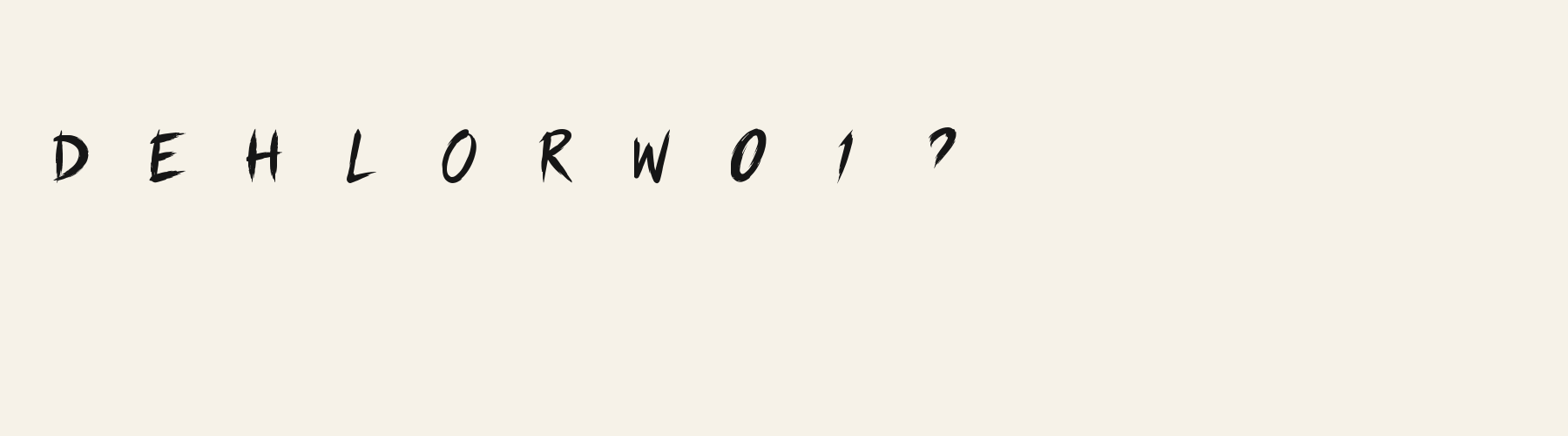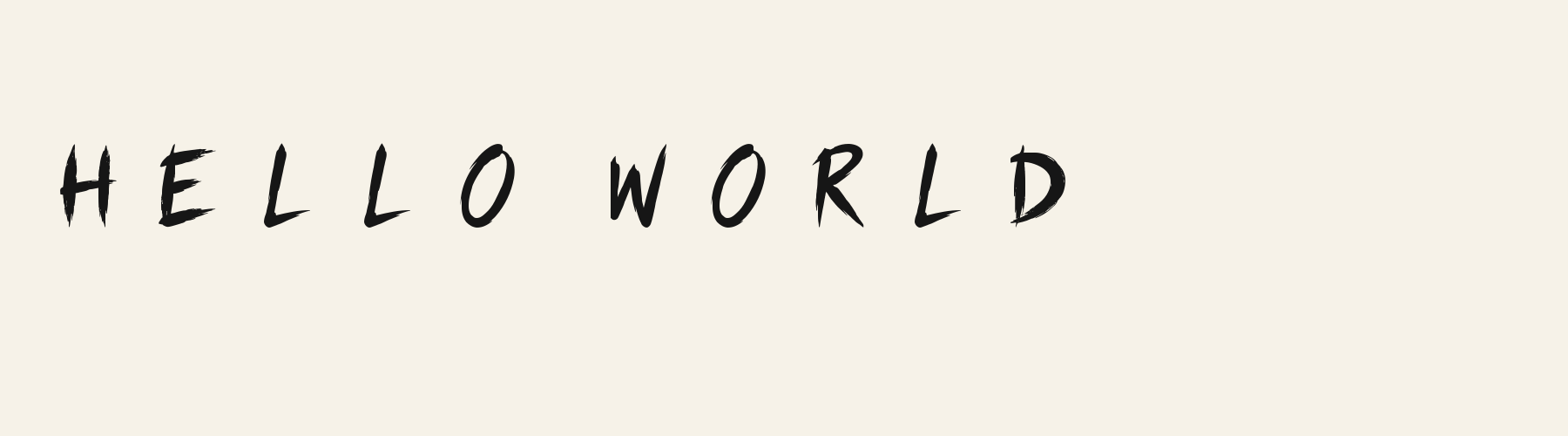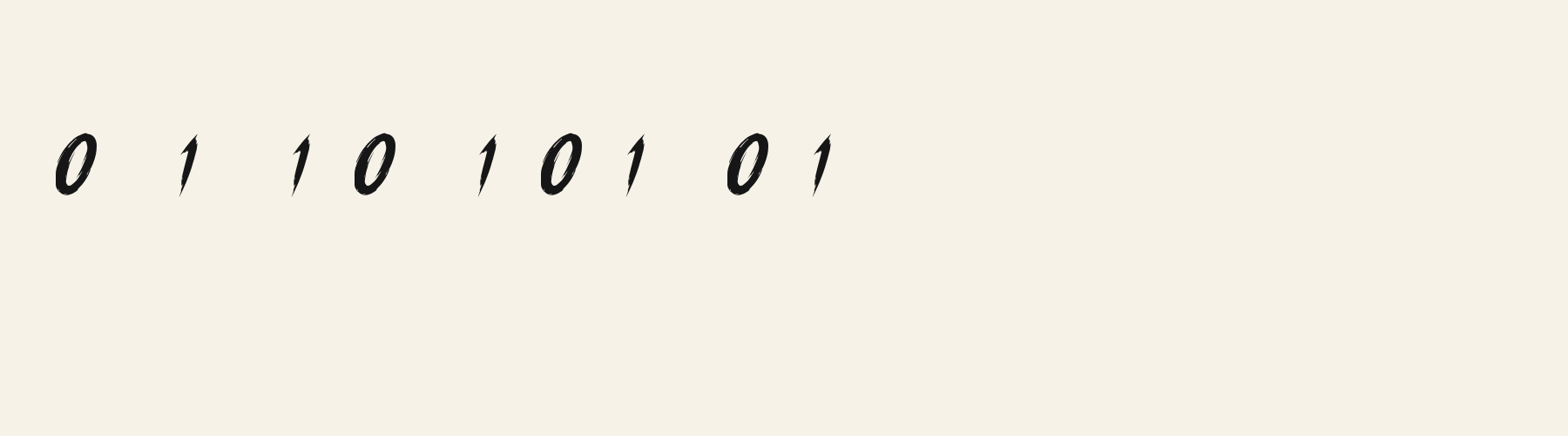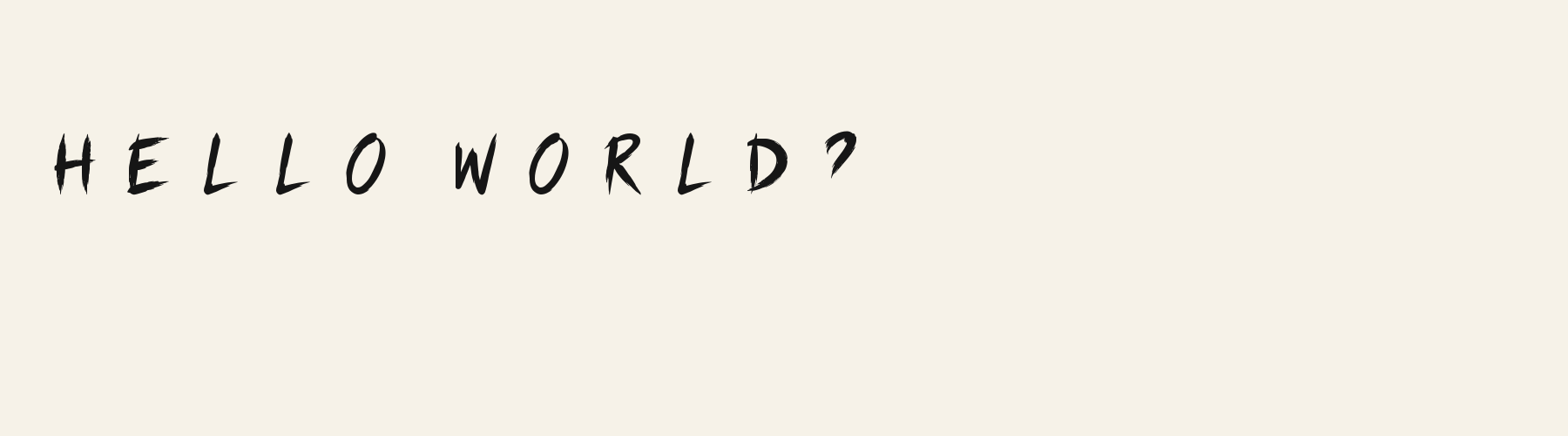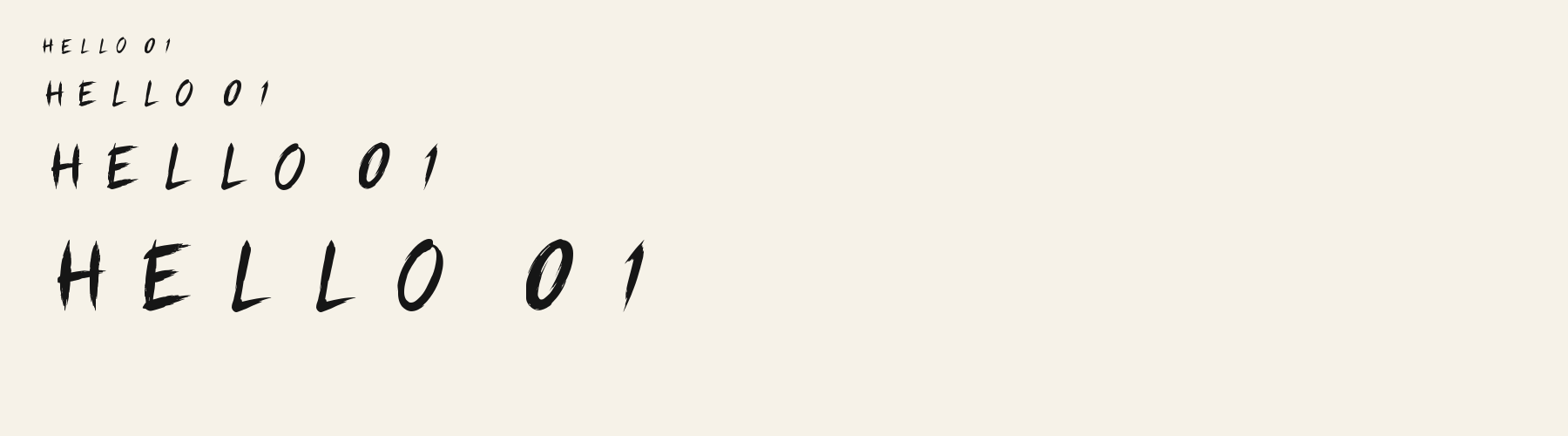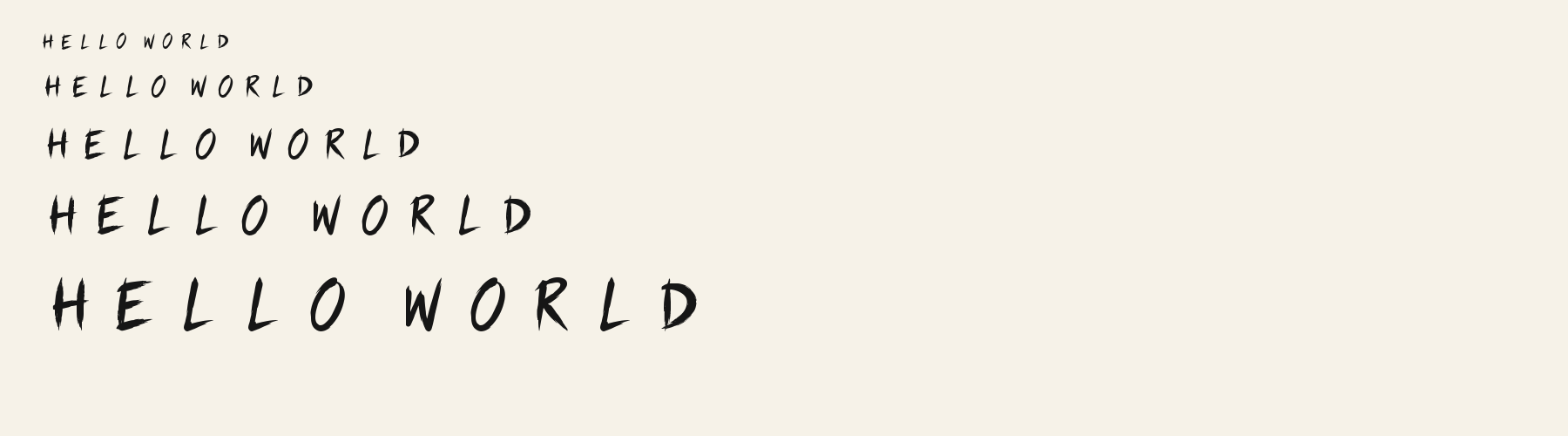
Brush Ink Taper Ragged Slant Display Font
Brush Ink Taper combines narrow capitals with pointed stroke endings and uneven edges.
Ragged Slant Display Letterforms
Brush Ink Taper combines narrow capitals with pointed stroke endings and uneven edges. The H has tall, spike-ended stems crossed by a heavy bar, while the E sends its outer arms into long, ragged tips. The R holds a compact upper bowl above a diagonal leg that thins sharply toward its end. Rounded letters provide a softer counterpoint, with open interiors and dark patches where the stroke turns. Thick strokes sit beside slender exits, giving the words a restless rhythm without filling every gap. The result feels brisk and emphatic, with enough open space to keep short phrases from becoming a solid dark block.
Preview your actual Latin wording, checking pointed endings, repeated letters and gaps around rounded forms. Compare punctuation with nearby capitals, especially the question mark. Check accented names and other scripts separately; these specimens establish neither their appearance nor their coverage.
Try this face for a short heading with a regular sans serif for descriptions and labels. Its sharp ends and changing stroke weight supply emphasis, while even companion strokes could give supporting information a calmer reading rhythm.
Brush Ink Taper: letterforms and layout
H
Compare smaller and larger previews: the larger setting exposes fine streaks along the edges and pointed stroke endings. In the smaller setting, check whether those details remain distinct around E, R and the question mark.
Brush Ink Taper has slimmer strokes, longer needlelike endings and a narrower overall word shape. Its H stands relatively upright, while the small upper bowl and thin descending leg give R a wiry finish.
Brush Note Casual shows heavier strokes, more consistently rough edges and a stronger forward lean. Its broader R and fuller W give the same phrase a denser, more sweeping rhythm.
Poster. Pointed endings and abrupt changes in stroke weight give a short poster title an urgent, restless rhythm. HOT HONEY
Product label. The narrow letters and ragged outer edges bring a lively handwritten accent to a compact food label. WILD HOURS
Book or album cover. Open rounded letters interrupt the sharp stems, giving a brief cover title both movement and breathing room.
The scenes are illustrations drawn on this page with Brush Ink Taper itself, not client work.
With an x-height of 80.2% of the cap height, its lowercase stands above the 73.2% median for handwriting fonts, the tallest of all 30 handwriting fonts. Ascenders on b, d, h, k and l rise 24% above the capitals, and descenders on g, j, p, q and y drop 14.2% of the cap height below the baseline, shallower than 28 of the 29 other handwriting fonts. It sets narrow: an average lowercase letter, spacing included, is 64.1% as wide as the capitals are tall (an average capital, 67.8%), 11.5% less than the median for handwriting fonts, so more words fit on a line. The o is an upright oval, 0.75 times as wide as it is tall, and B is the widest capital, at 1.01 times the width of H. The O stops 5.6% of the cap height short of H and stands 2.6% above the baseline.
The letters lean about 7° to the right, where most handwriting fonts in the library stand upright. Ink covers 31.2% of each lowercase letter's box (its advance width by the cap height), lighter than 21 of the 29 other handwriting fonts. The contrast is reversed: the tops and bottoms of o and O are 1.4 times as thick as their sides.
Its 95 characters include 52 Latin letters, plus 43 figures, punctuation marks and symbols; there are no accented Latin letters beyond A to Z. The word space measures 56.1% of the cap height, and the blank space either side of a lowercase letter takes up 15.2% of its width. The font carries no kerning, so spacing comes from each letter’s own side bearings. The figures have different widths, so columns of numbers set in Brush Ink Taper will not line up exactly.
- Pressure-sensitive strokes with pointed starts, tapered exits and controlled ink pooling at turns
- Keystone Shoulder Sans (sans serif), Buttress Bowl Sans (sans serif) and Candy Heart Slab (serif) are drawn on a different letter structure, so Brush Ink Taper can carry the headings while one of them sets the text. Each has its own page with a type tester for trying the pair.
- In the same handwriting style: Crayon Print (27% wider, upright); Brush Note Casual (23% wider, heavier strokes); Kapow 3D (20% wider, heavier strokes).